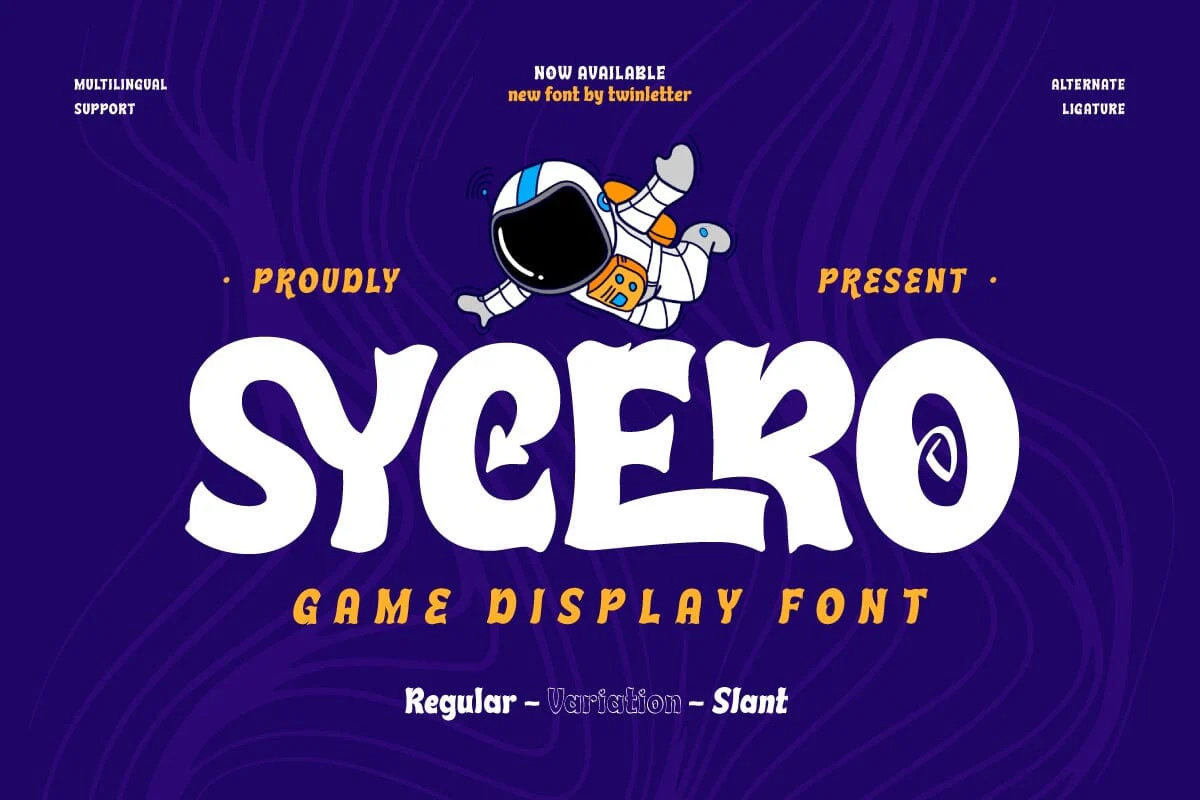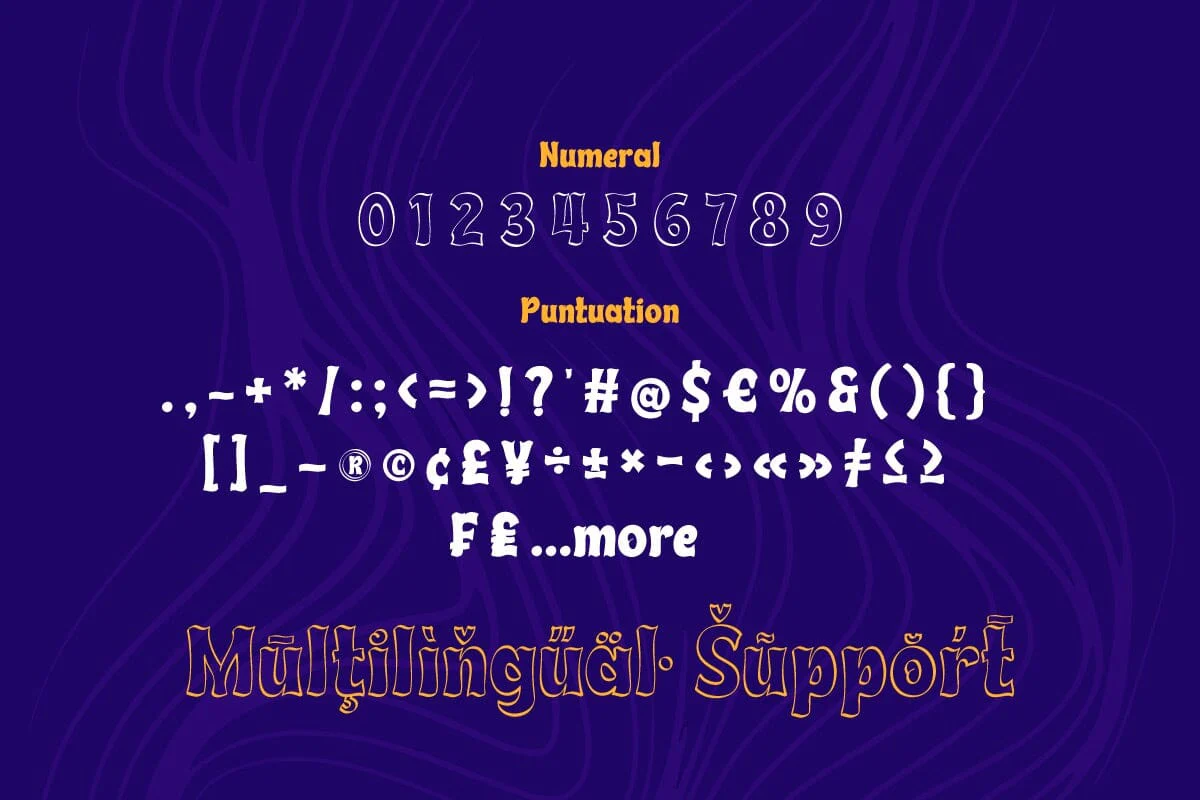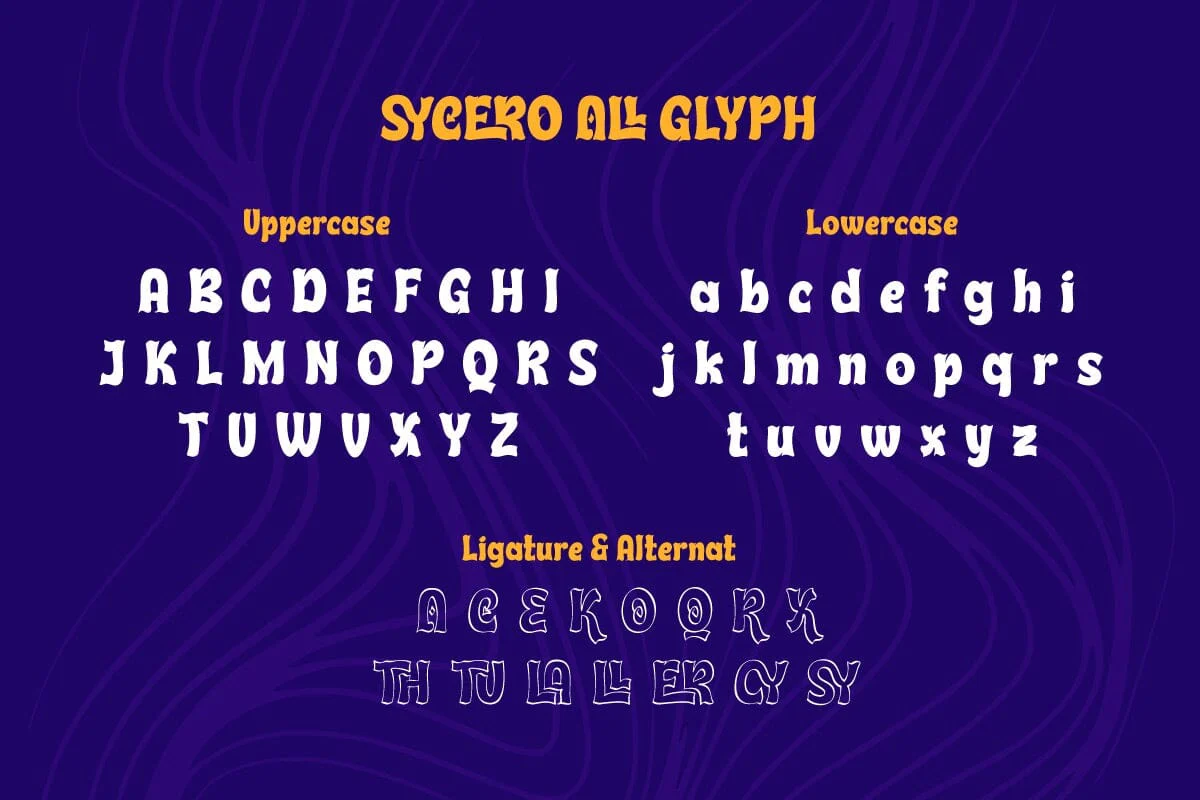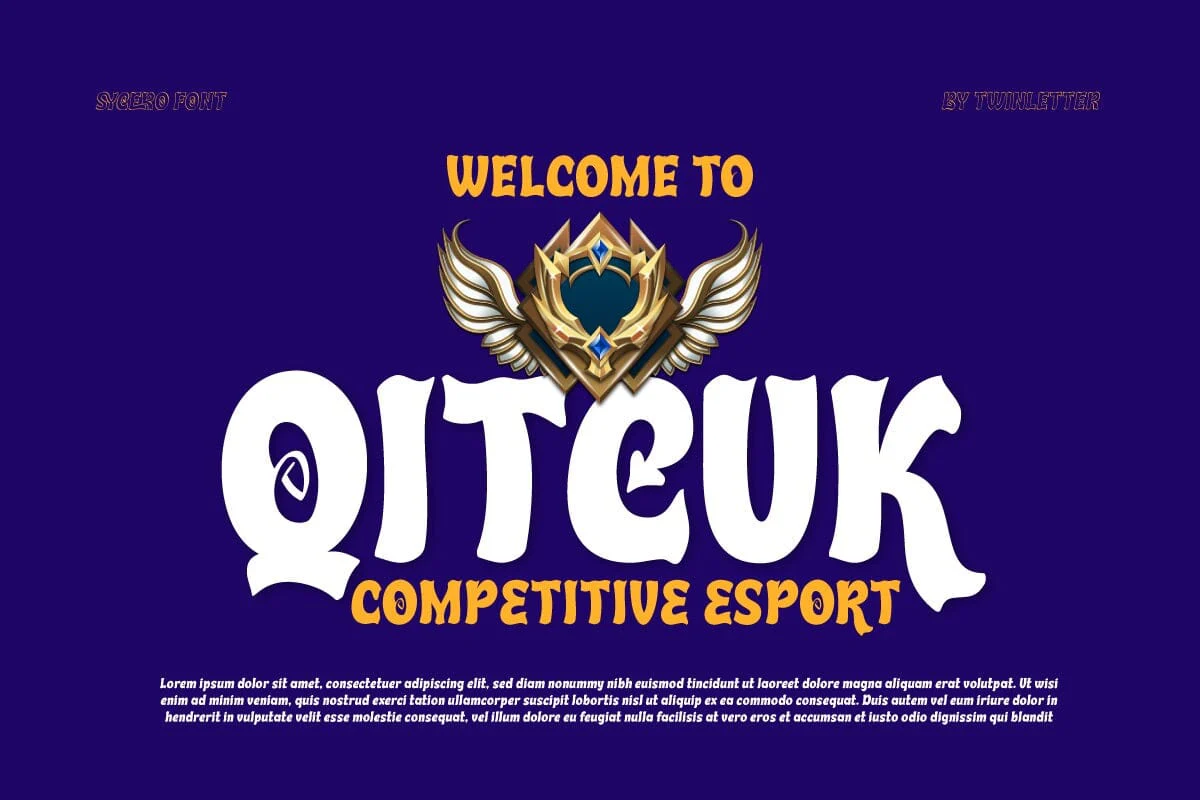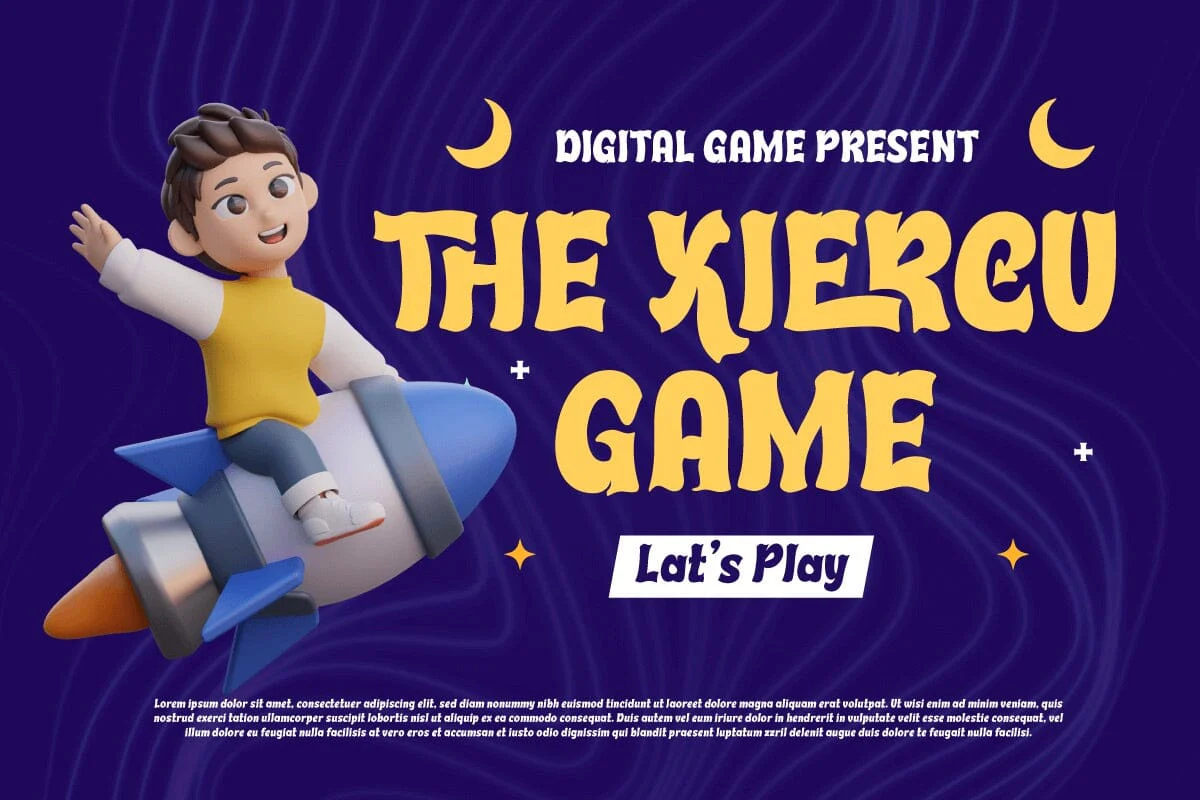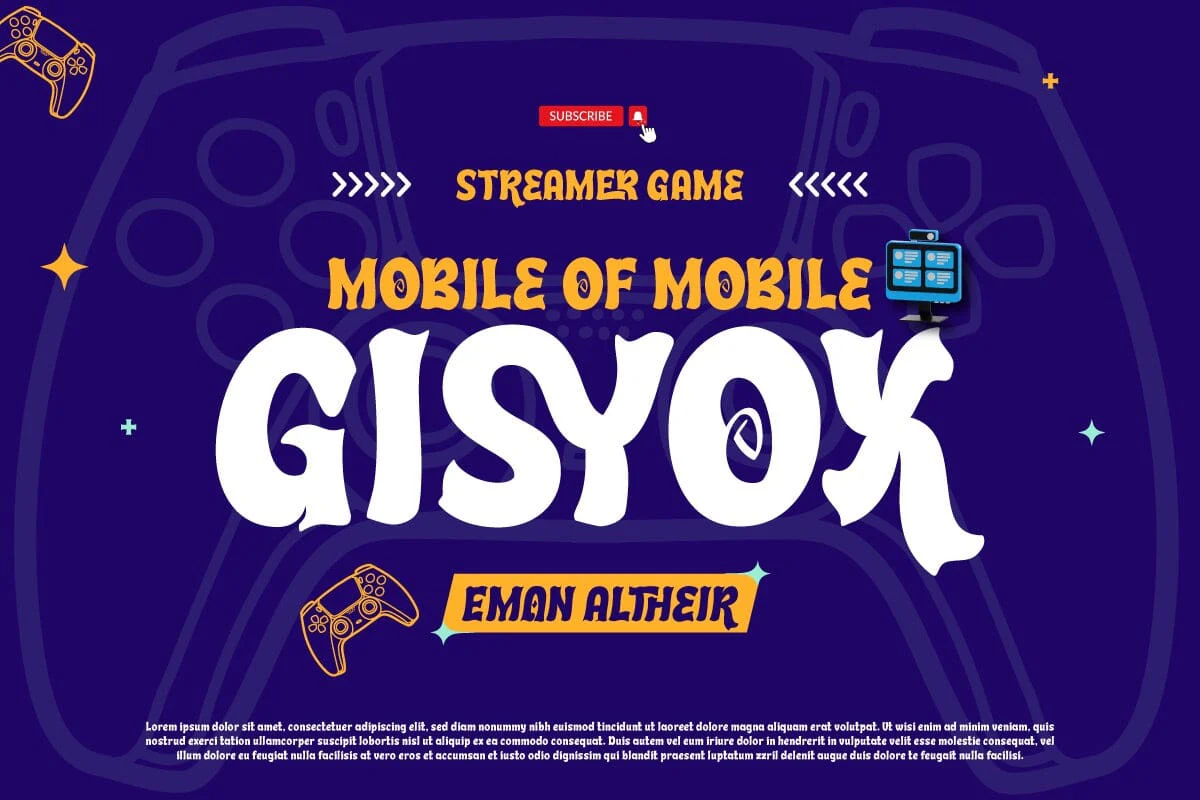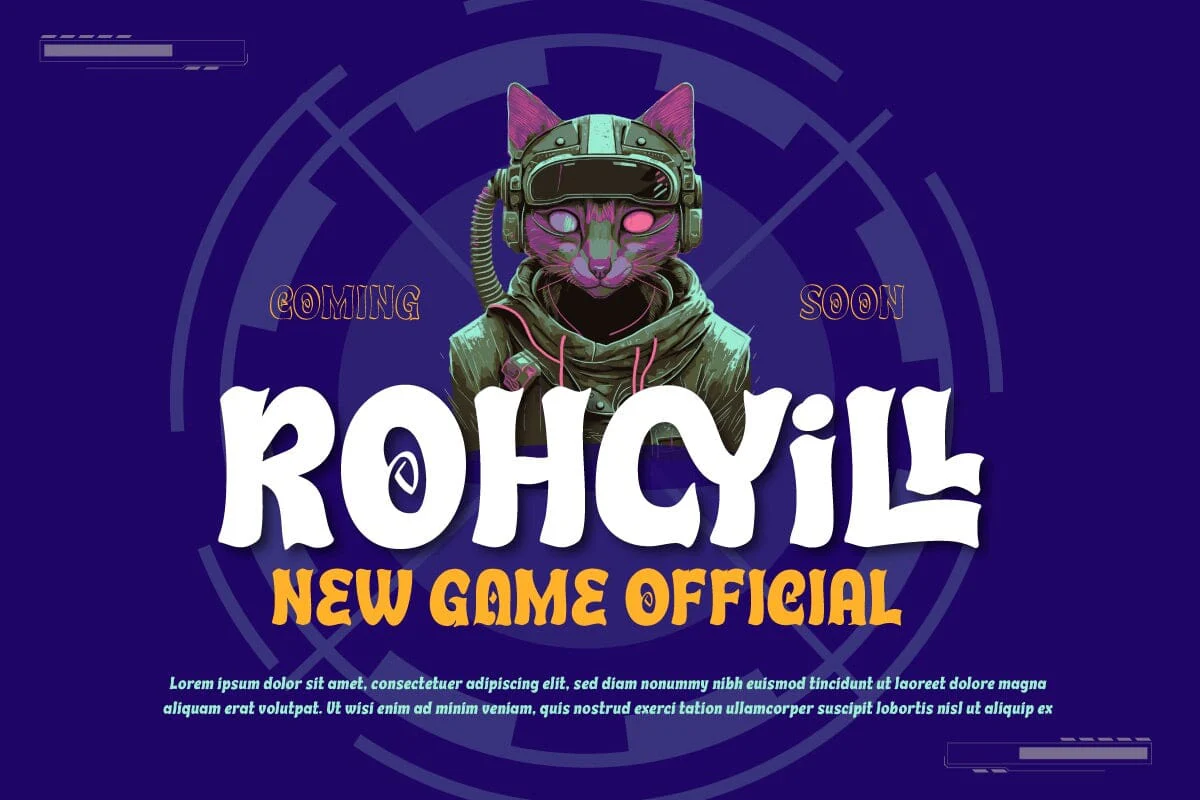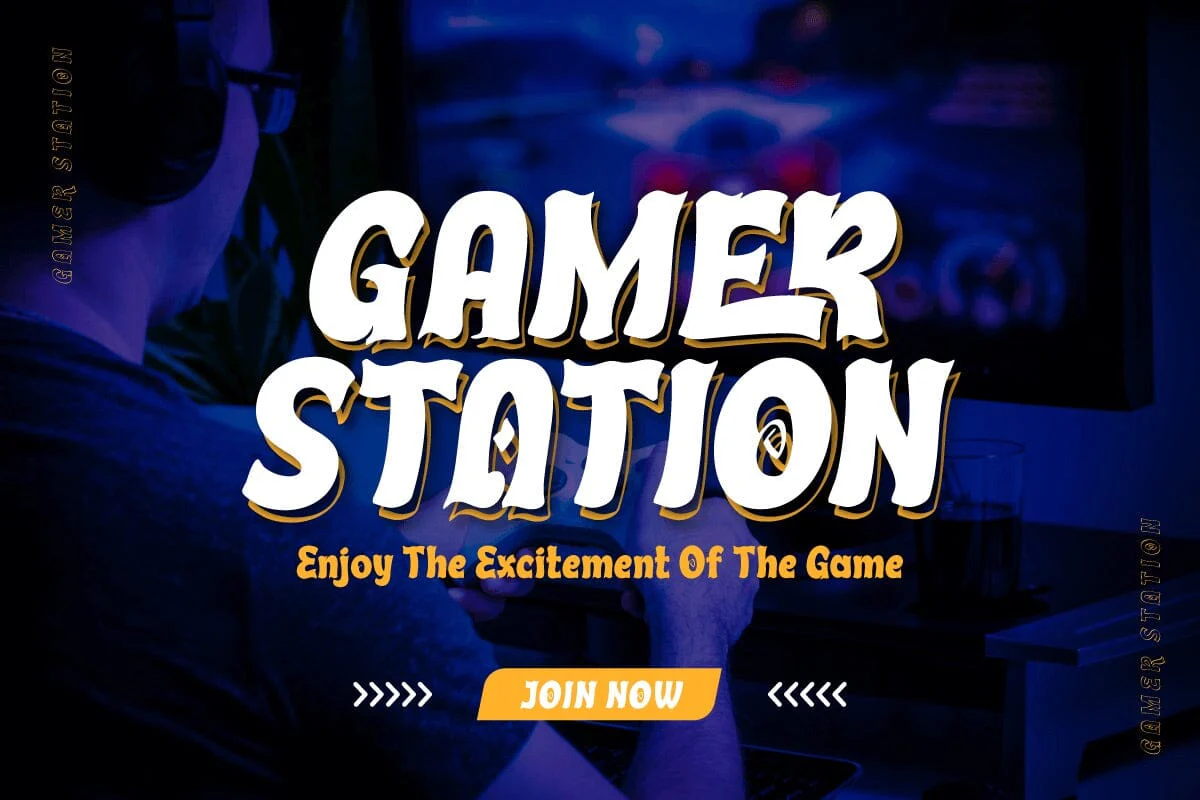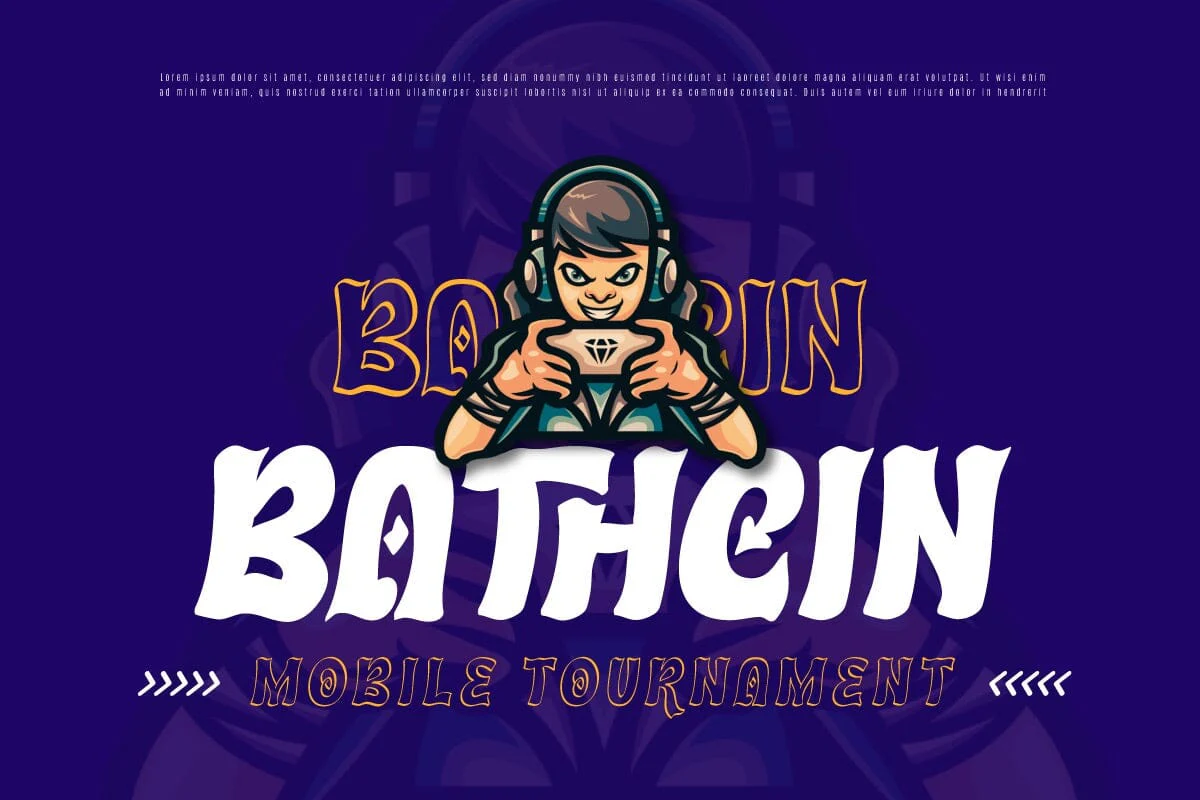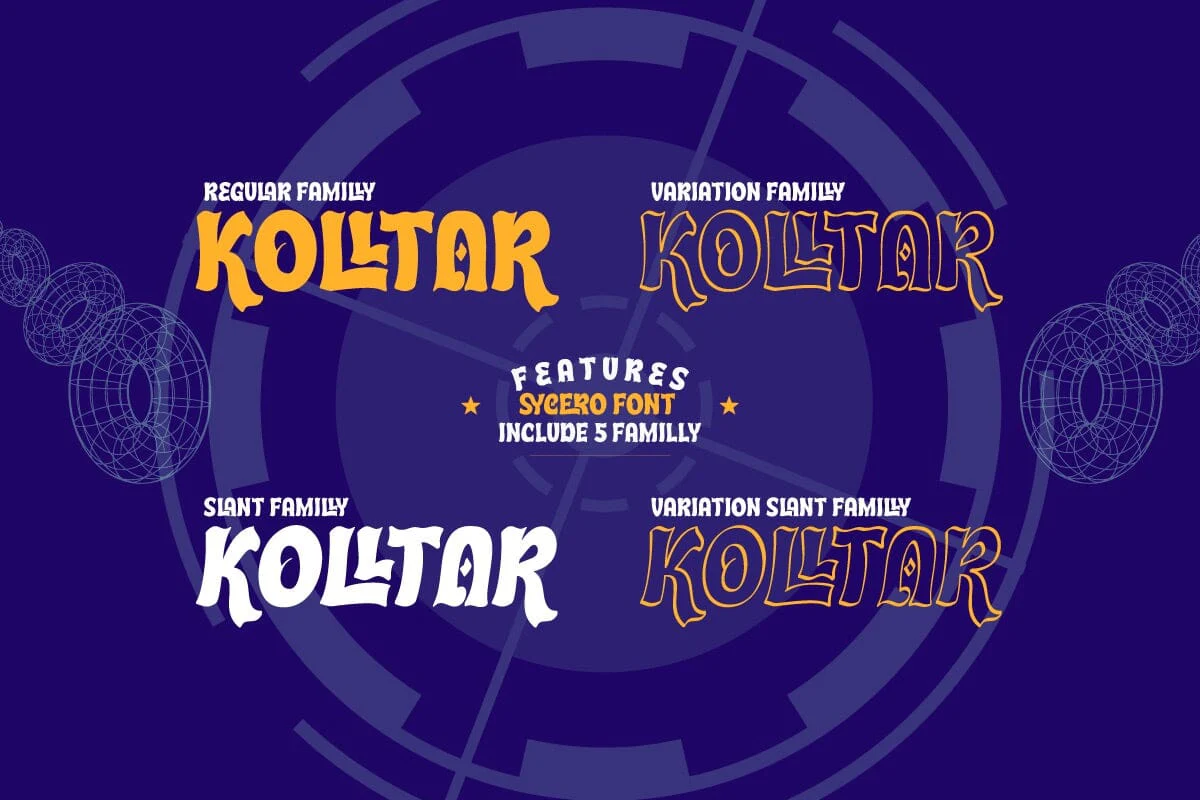
Sycero - Game Display Font
Welcome to the world of typographic adventure with Sycero, a display font designed specifically to celebrate the passion and excitement in every game. Sycero combines powerful display elements with a dynamic gaming touch, creating an epic and stylish display. Each Sycero letter reflects power and adventure, with a rugged and modern display design. This font is ideal for use in game titles, logos, or other design elements that require a unique and memorable typographic identity. Sycero's uniqueness lies in its ability to express the spirit of adventure with clarity and visual appeal. From action games to fantasy RPGs, this font is ready to provide a striking and engaging typographic identity. With Sycero, bring a thrilling gaming feel to your designs. Let each letter be a visual travel guide through your game world, showcasing engaging design elements and inviting players to explore the world you create. What’s Included: - File font OTF, TTF, WOFF, WOFF2, CSS, HTML - All glyphs and variation - We highly recommend using a program that supports OpenType features and Glyphs panels like many Adobe apps and Corel Draw so that you can see and access all Glyph variations. - PUA Encoded Characters – Fully accessible without additional design software. - Fonts include Multilingual support